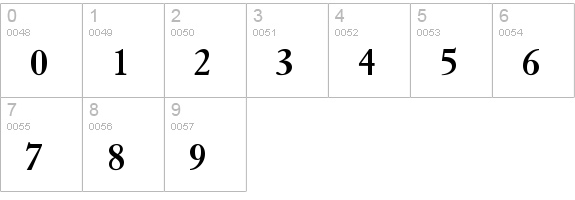
Elegant Garamond Bold is a strong, high-contrast variant in the Elegant typeface family \xE2\x80\x94 well suited to headlines, attention-grabbing titles, and strong calls-to-action.
Elegant Garamond Bold is a timeless and sophisticated font that exudes class and grace. With its strong, bold strokes and delicate serifs, this font is perfect for adding a touch of luxury to any design project. The bold weight of Garamond Bold commands attention and makes a statement, while still maintaining an air of elegance and refinement. And the best part? Elegant Garamond Bold is available for free download at FontsMarket.com. Whether you're creating a wedding invitation, designing a logo, or working on a branding project, this font is sure to elevate your work and leave a lasting impression. Download Elegant Garamond Bold today and add a touch of timeless elegance to your designs.